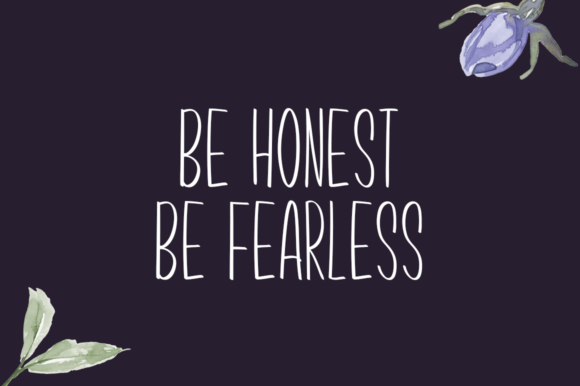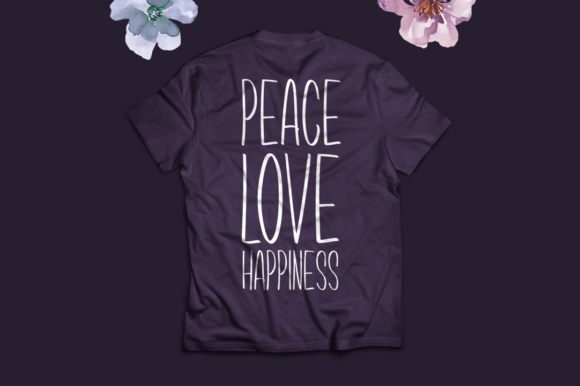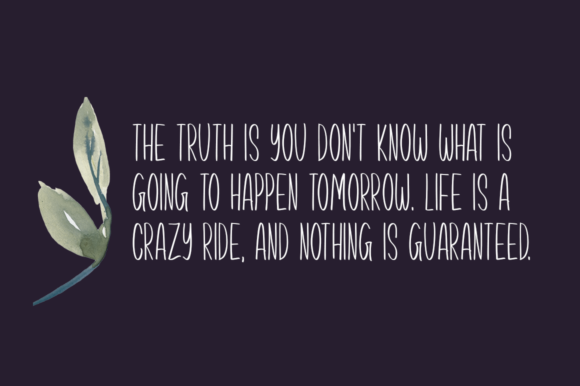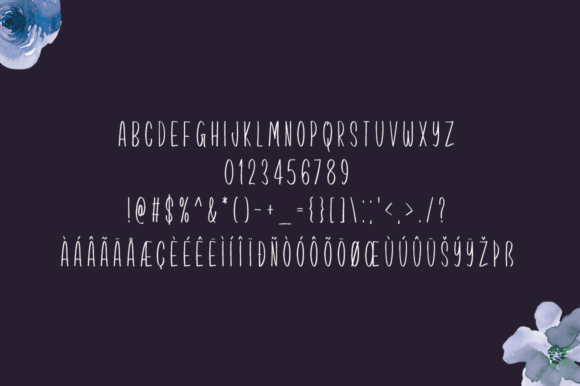
Introduction to Precious Way Font
Have you ever been in the middle of a creative project, staring at a blank page, and suddenly, an idea strikes? The words flow, the design comes together, and you feel like a genius. That’s exactly what happened when I first laid eyes on the Precious Way Font. Its thin, simple lines and elegant handwriting style instantly captured my attention, and I knew I had to incorporate it into my next project.
The Precious Way Font is a free download that offers a high-quality design resource for any creative project. With its transparent background, it can easily be matched to an incredibly large set of projects, making it a valuable addition to any designer’s toolkit. Whether you’re working on a personal or professional project, this font is sure to bring a touch of sophistication and elegance to your design.
Precious Way Font
- High-quality design resource for creative projects, ideal for graphic designers and artists.
- Includes a transparent background, allowing for seamless integration into various design applications.
- Designed to be highly legible, with a clear and elegant font face that is perfect for body text or headings.
- Unique characteristic: The font features a subtle, hand-drawn feel, giving it a personal and exclusive touch.
Honest Review: Precious Way Font
I recently had the chance to work with the Precious Way Font for a creative project, and I must say it’s a great addition to any designer’s toolbox. The font is a high-quality design resource that offers a unique and elegant style.
What works well with the Precious Way Font is its versatility. It’s perfect for titles and headings, and it also works well for body text when used in a larger font size. The font also comes with a transparent background, making it easy to use on any design surface.
- ✨ Unique and elegant style
- ✨ High-quality design resource
- ✨ Versatile and easy to use
- ✨ Comes with a transparent background
One limitation of the Precious Way Font is that it may not be suitable for projects that require a bold or edgy look. Additionally, the font may not be as readable on small screens or in very small font sizes.
Overall, I’m really impressed with the Precious Way Font. It’s a great free download that’s perfect for designers looking to add a touch of elegance to their projects. I would definitely recommend it to anyone looking for a high-quality design resource.
Precious Way Font
Tips for Getting the Most Out of Precious Way Font
To get the most out of the Precious Way Font, use it with a transparent background to make your designs stand out. You can also pair it with other design resources to create a unique and eye-catching look.
The Precious Way Font is perfect for a variety of creative projects, including logo design, typography, and branding materials. It’s also great for creating social media graphics, presentations, and other visual content.
Alternatives to Precious Way Font
Fontin is a high-quality, elegant script font ideal for creative projects that require a sophisticated touch. It features a transparent background, making it perfect for overlays and text overlays. Fontin is available for free download and is a great design resource for designers.
Compared to Precious Way Font, Fontin has a more refined and polished look, making it suitable for high-end branding and marketing materials. However, Fontin lacks the whimsical feel of Precious Way Font, making it less suitable for playful and humorous designs.
Great Vibes is a beautiful, handwritten font that exudes a sense of creativity and freedom. It’s perfect for designers working on projects that require a touch of elegance and sophistication. Great Vibes features a transparent background and is available for free download, making it a valuable design resource.
Compared to Precious Way Font, Great Vibes has a more fluid and dynamic feel, making it suitable for projects that require a sense of movement and energy. However, Great Vibes lacks the intricate details of Precious Way Font, making it less suitable for designs that require a high level of precision.